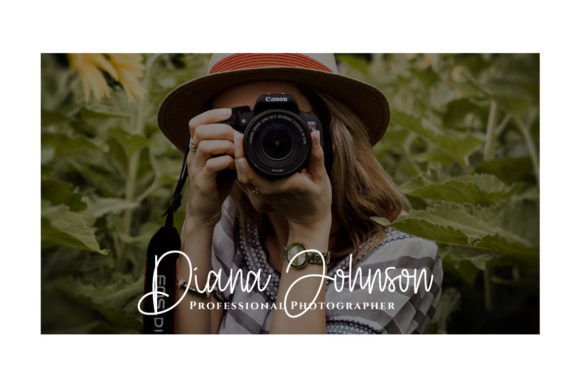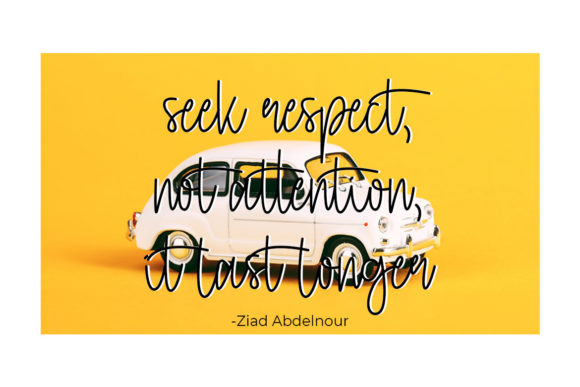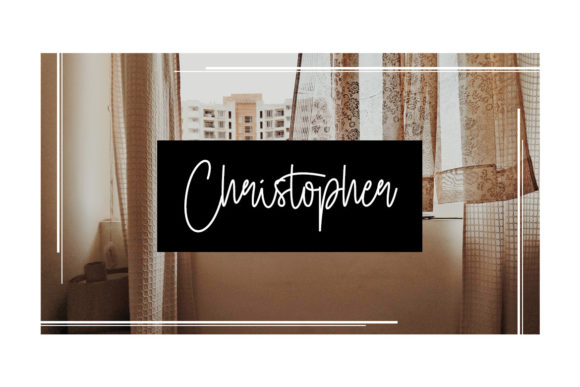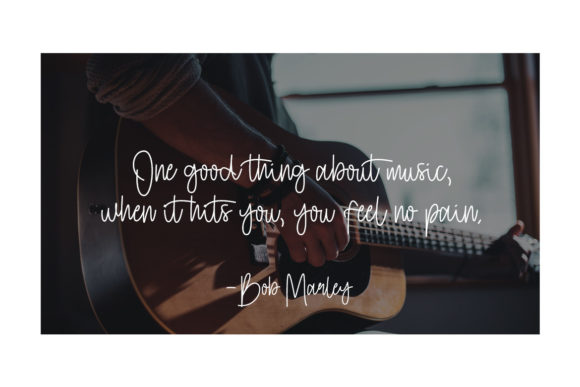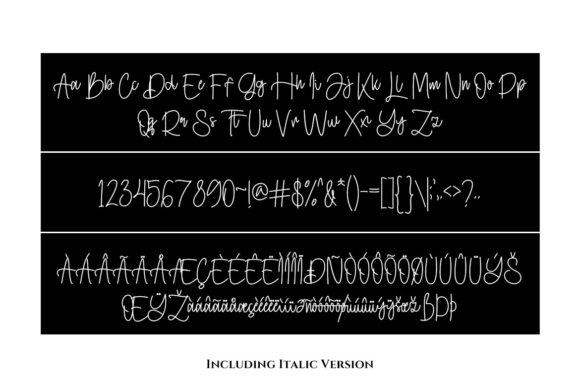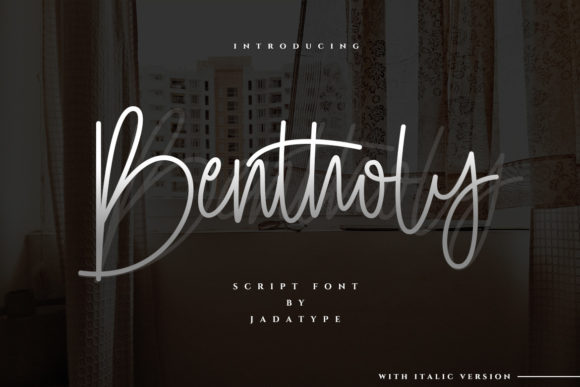
Bentholy Font: Elevate Your Designs with Sophistication and Elegance
In the world of typography, fonts play a crucial role in conveying the tone and personality of a design. For designers and crafters seeking to add a touch of sophistication and elegance to their projects, Bentholy Font is an exceptional choice. This chic, thin script font is designed to make a statement, and its stylish alternates and ligatures make it the perfect match for a wide range of applications.
The Essence of Bentholy Font
Bentholy Font is a meticulously crafted script font that exudes refinement and luxury. Its thin strokes and fluid curves create a sense of movement and dynamism, making it ideal for designs that require a high level of sophistication. Whether you’re working on a branding project, packaging design, or digital content, Bentholy Font is sure to elevate your work to new heights.
Key Features of Bentholy Font
- Stylish Alternates: Bentholy Font offers a range of stylish alternates that allow you to add variety and creativity to your designs. These alternates can be used to create a unique visual identity for your brand or project.
- Ligatures: The font also features a set of ligatures that enable you to create smooth, flowing connections between letters. This feature is particularly useful for creating elegant and refined text.
- Thin Strokes: The thin strokes of Bentholy Font give it a sleek and modern appearance, making it perfect for designs that require a high level of sophistication.
- Script Font: As a script font, Bentholy Font is designed to add a touch of elegance and refinement to your designs.
Use Cases for Bentholy Font
Bentholy Font is a versatile font that can be used in a wide range of applications, including:
- Branding: Use Bentholy Font to create a sophisticated and elegant brand identity that sets you apart from the competition.
- Packaging Design: The font’s thin strokes and stylish alternates make it perfect for packaging design, particularly for luxury brands.
- Digital Content: Bentholy Font can be used to create engaging and refined digital content, such as blog posts, social media graphics, and email newsletters.
- Wedding and Event Design: The font’s elegant and refined appearance makes it a popular choice for wedding and event design.
Tips for Using Bentholy Font
To get the most out of Bentholy Font, here are a few tips to keep in mind:
- Use it sparingly: Bentholy Font is a statement font, so use it sparingly to avoid overwhelming your design.
- Pair it with a sans-serif font: Pairing Bentholy Font with a sans-serif font can create a striking contrast that adds visual interest to your design.
- Experiment with alternates and ligatures: Don’t be afraid to experiment with the font’s alternates and ligatures to create a unique visual identity.
Bentholy Font is a sophisticated and elegant script font that is perfect for designers and crafters seeking to add a touch of refinement and luxury to their projects. With its stylish alternates, ligatures, and thin strokes, this font is sure to elevate your designs to new heights. Whether you’re working on a branding project, packaging design, or digital content, Bentholy Font is an exceptional choice.